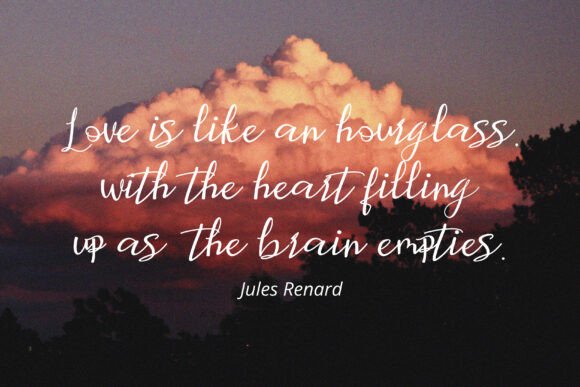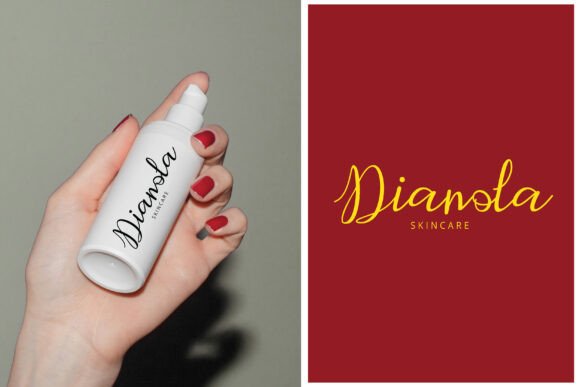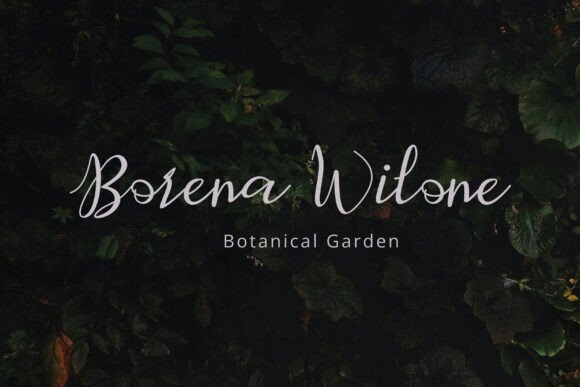
Introduction to Retafia Font
As a designer, you know that finding the perfect font can be a game-changer for your creative project. Whether it’s a wedding invitation, a personal branding project, or a social media graphic, the right font can elevate your design and make it truly stand out. That’s why we’re excited to introduce you to Retafia Font, a sophisticated modern calligraphy font that’s about to become your new go-to design resource.
Retafia Font is more than just a pretty face – it’s a high-quality font that’s perfect for designers who want to add a touch of elegance and sophistication to their work. With its fluid, graceful strokes and stylish swashes, this typeface is ideal for a wide range of creative projects, from product packaging to social media graphics.
Key Features of Retafia Font
- Includes a comprehensive set of glyphs, covering a wide range of languages and characters.
- Designed with a modern and elegant aesthetic, making it perfect for various design applications, from logos to typography.
Honest Review: Retafia Font
As a designer, I’m always on the lookout for high-quality design resources to elevate my creative projects. The Retafia Font has caught my attention, and I’m excited to share my honest review with you.
What works well: ✨ The Retafia Font offers a clean and modern aesthetic, perfect for digital design projects. The font is highly customizable, with a wide range of styles and weights to choose from. I appreciate the transparent background, which makes it easy to integrate with other design elements.
Limitations: ⚠️ While the Retafia Font is a great addition to any design library, I’ve noticed that it can be a bit tricky to use in print designs. The font’s modern style may not be suitable for more traditional or formal projects.
Overall impression: I’m impressed with the Retafia Font’s quality and versatility. It’s an excellent choice for digital design projects, and the free download option makes it a great value for designers. However, it may not be the best fit for print designs or more traditional projects.
- Pros: clean and modern aesthetic, highly customizable, transparent background, free download
- Cons: may not be suitable for print designs or more traditional projects
Getting the Most Out of Retafia Font
For optimal results, pair the Retafia Font with a simple background and bold lines. Experiment with different font sizes and colors to create visually appealing designs. This versatile font is suitable for a wide range of creative projects.
Common Use Cases for Retafia Font
The Retafia Font is commonly used in logos, posters, presentations, and business documents. Its high-quality design makes it perfect for any creative project requiring a professional touch.
What is the recommended usage for the Retafia Font?
The Retafia Font is ideal for various design projects, including branding, packaging, and digital design. Its unique style and high-quality design make it perfect for creating eye-catching and memorable designs. You can use it in conjunction with other design elements, such as graphics and illustrations, to create a cohesive and visually appealing design.